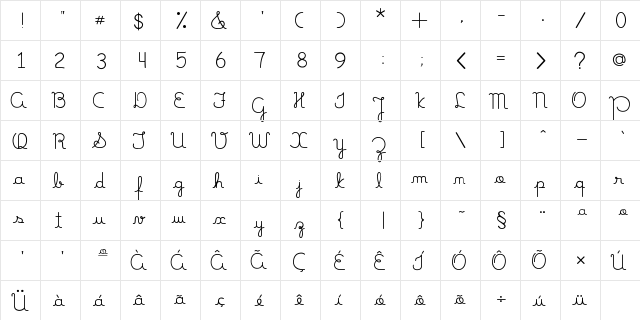
MamaeQueNosFaz Regular
Design Context for MamaeQueNosFaz Typeface
MamaeQueNosFaz is a composed and adaptable typeface that performs quietly and consistently across a wide range of design contexts.